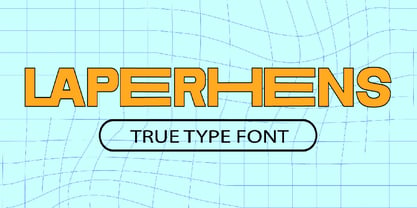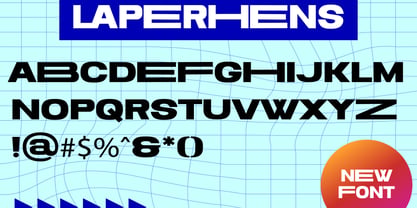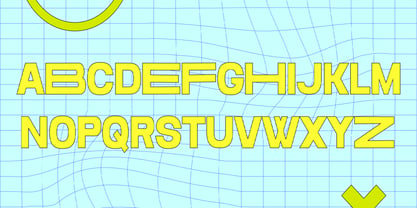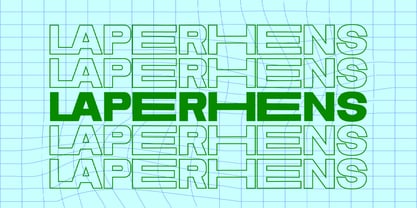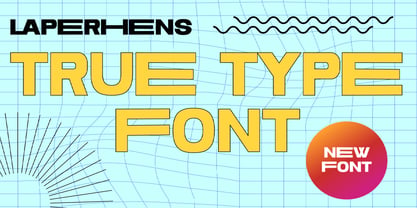
Laperhens
by NineteenWorks
The Laperhens Font Family was designed by Wildan Diantoro and published by NineteenWorks. Laperhens contains 1 styles. More about this family
Introducing Laperhens, a bold and modern sans-serif font designed to make a powerful impact. Laperhens features a very heavy, wide, and blocky character set, built with clean geometric precision. Its thick strokes and extended letterforms give it a strong, stable, and assertive presence, making it incredibly eye-catching.
It's the perfect choice for impactful headlines, modern logos, poster design, tech-focused branding, sports apparel, and any project that needs a clean yet powerful typographic voice.
With Laperhens, your message will stand out with confidence and clarity.
Designers: Wildan Diantoro
Foundry: NineteenWorks